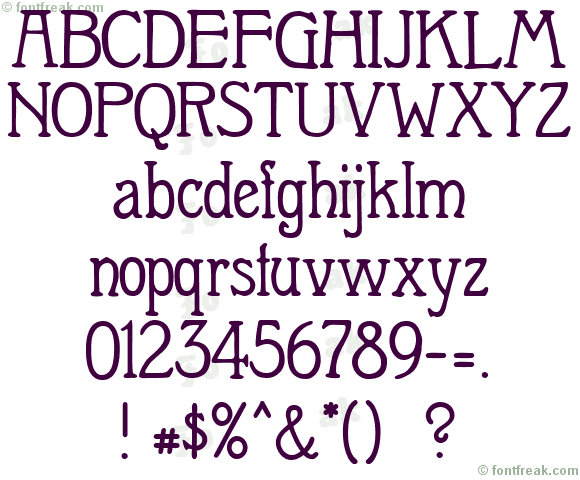
Berolina
The Berolina font, designed by Peter Wiegel, falls within the category of serif typefaces, showcasing a classic and elegant aesthetic. With its smooth curves and distinct serifs, this typeface offers a perfect blend of traditional charm and modern versatility. The stroke weight is moderate, providing a pleasing balance that enhances readability while maintaining a sophisticated appearance. The contrast between thick and thin strokes adds depth, making it an excellent choice for various applications. The spacing is thoughtfully designed to ensure clarity and cohesion, making the Berolina font easy to read in both large and small text.
This font is particularly well-suited for a diverse range of use cases. It shines in crafting wedding invitations, where its elegant serifs can convey a sense of romance and tradition. Movie posters can benefit from Berolina's striking presence, capturing attention while maintaining an air of sophistication. Restaurant menus can utilize this font to create a refined atmosphere, appealing to patrons seeking a high-quality dining experience. Additionally, it works well for branding materials, such as logos and business cards, where a touch of classic style can make a memorable impression. The target audience for Berolina includes graphic designers, small business owners, and content creators who appreciate the balance between elegance and functionality.
What makes the Berolina font stand out is its ability to evoke a sense of timelessness while remaining adaptable to modern design trends. Its freeware licensing under the GPL and OFL makes it accessible for anyone looking to enhance their creative projects without the constraints of costly font licenses. For those seeking a versatile and refined typeface, the Berolina font free download is an excellent choice that combines beauty and practicality.